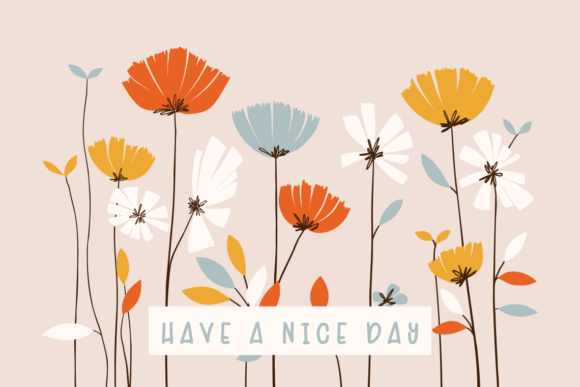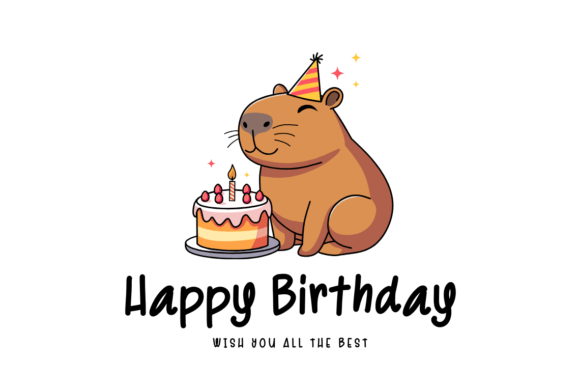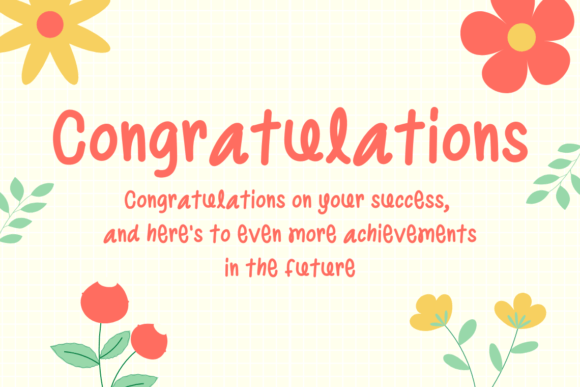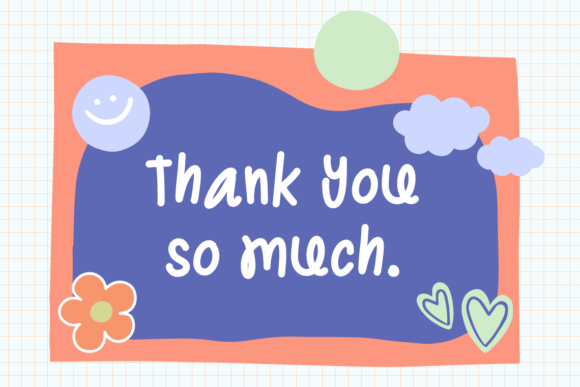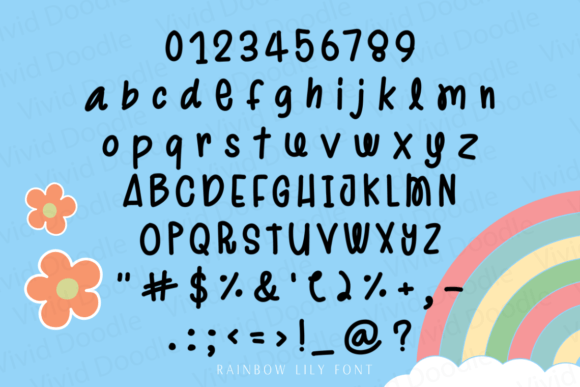
Introduction to Rainbow Lily Font
Discover the beauty of Rainbow Lily – a handwritten font, designed to bring a touch of elegance and vibrancy to your projects.
Perfect for various applications, from wedding invitations and personal notes to posters and digital artwork, Rainbow Lily adds a distinctive charm to every design Let your creativity bloom with the exquisite Rainbow Lily style and make your projects stand out.
Key Features of Rainbow Lily Font